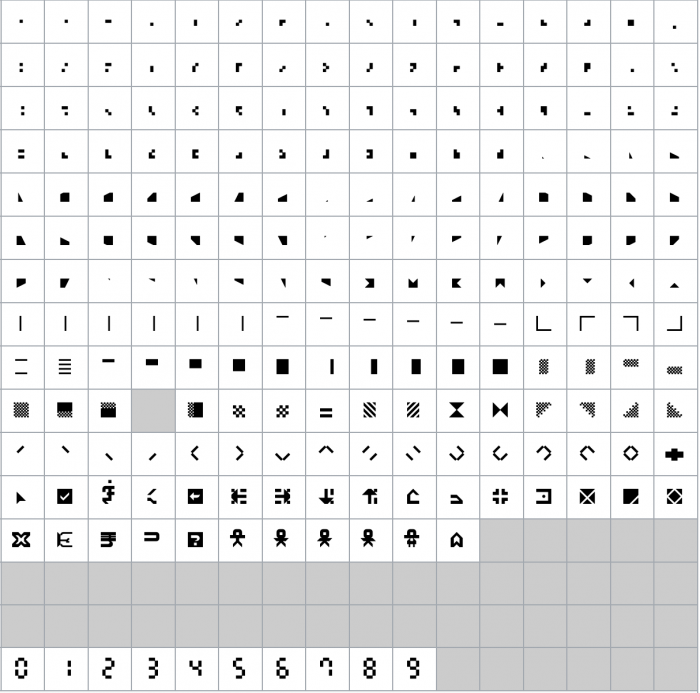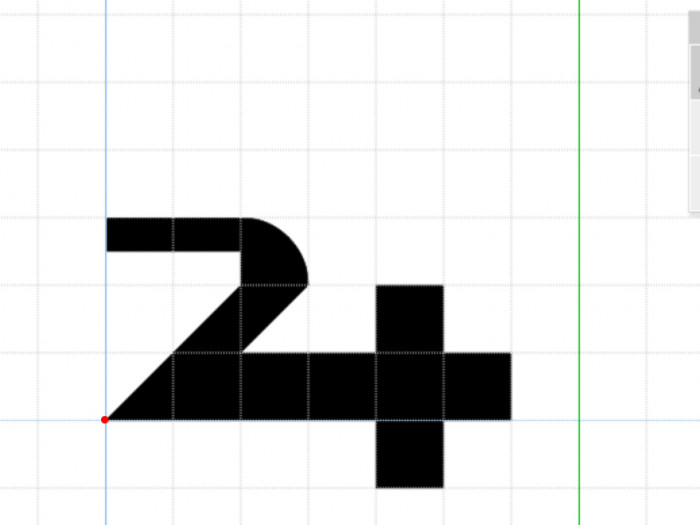
You can only have up to 65,535 glyphs in one font, including unencoded glyphs… Any more and the file breaks.
Later i need to improve the letter spacing
for example:
1. gj, jj, qj and their accents (eg: Cyrillic qa, Greek jot, Cyrillic je [used in serbian]) 2. the lowercase t and their accents (eg: ť (t caron), ʈ (t with long leg))
Fix it!
fixed the cyrillic combining marks (5 chars)
Fixed u+a673
The old version is nonspacing and ugly
8500 glyphs reached
Kerned the letter spacing between Ta, Tc, Td, Te, Tg, Tm, Tn, To, Tp, Tq, Tr, Ts, Tu, Tv, Tw, Tx, Ty, Tz, gj, jj, qj, yj, дд, цд, щд
Unicode 15.0.0 glyphs that i made
There are 212 chars in legacy computing
(Unicode 13.0)
Sample 1
Drafts/Plans
29 Oct: will add arabic extended a and b
1 Nov: will add more asian languages
5 Nov: will add arabic presentation forms b
8 Nov: will have a glyph check until 17th October
Today's news:
Wrong glyph for Georgian Letter Xan (U+10EE)
It's exactly a Georgian Jil!
I fixed the letter xan and added 46 uppercase letters
Georgian: Fixed the letter xan √
Georgian Supplement (v4.1, 6.1)√
Georgian Extended (already done)
Modern Georgian Letters for unicofonte, just like helvetica.
such as The bottom part of წ (ts’) is rounded bottom
ტ (t’) has the shape of a circle with a short line, just like the Turned Q in ITC Bauhaus
Difficult to make the original version. we need to nnnnnnnnnnudge! and nnnnnnnnnnnnudge! and make aaaaaa lot of composites
Apple and Android used the modern version
F with stroke updated. I WILL remake it & make the alternate form.
BlockKie, 7:12 Serif has the same problem too
Cmunk and JoohnFonts needs to fix it
It looks like a French franc sign
Added Unifon
sorry. multiocular o has only 7 eyes not 10 eyes & the f with stroke looks like a Ghe with hook and stroke
it's just unicode 14.0
Problem found! Latin small letter beta (not the Greek one) is looks like a ß(sharp s) with a long left leg.
The old version is exactly a "GREEK" beta!
I fixed it at 12:59pm
multi-ocular o has 10 eyes now
F with stroke looks LIKE a French franc sign not a f with hook
I nudged 2 steps of the 1/2 stroke of the f
i added 7 emotions
Rum rotunda (small) positioned well in Unicofonte
Added 2 New Currency Signs
Tamil Rupee
Khmer Riel
Added Osage
at least my font has over 9500 glyphs